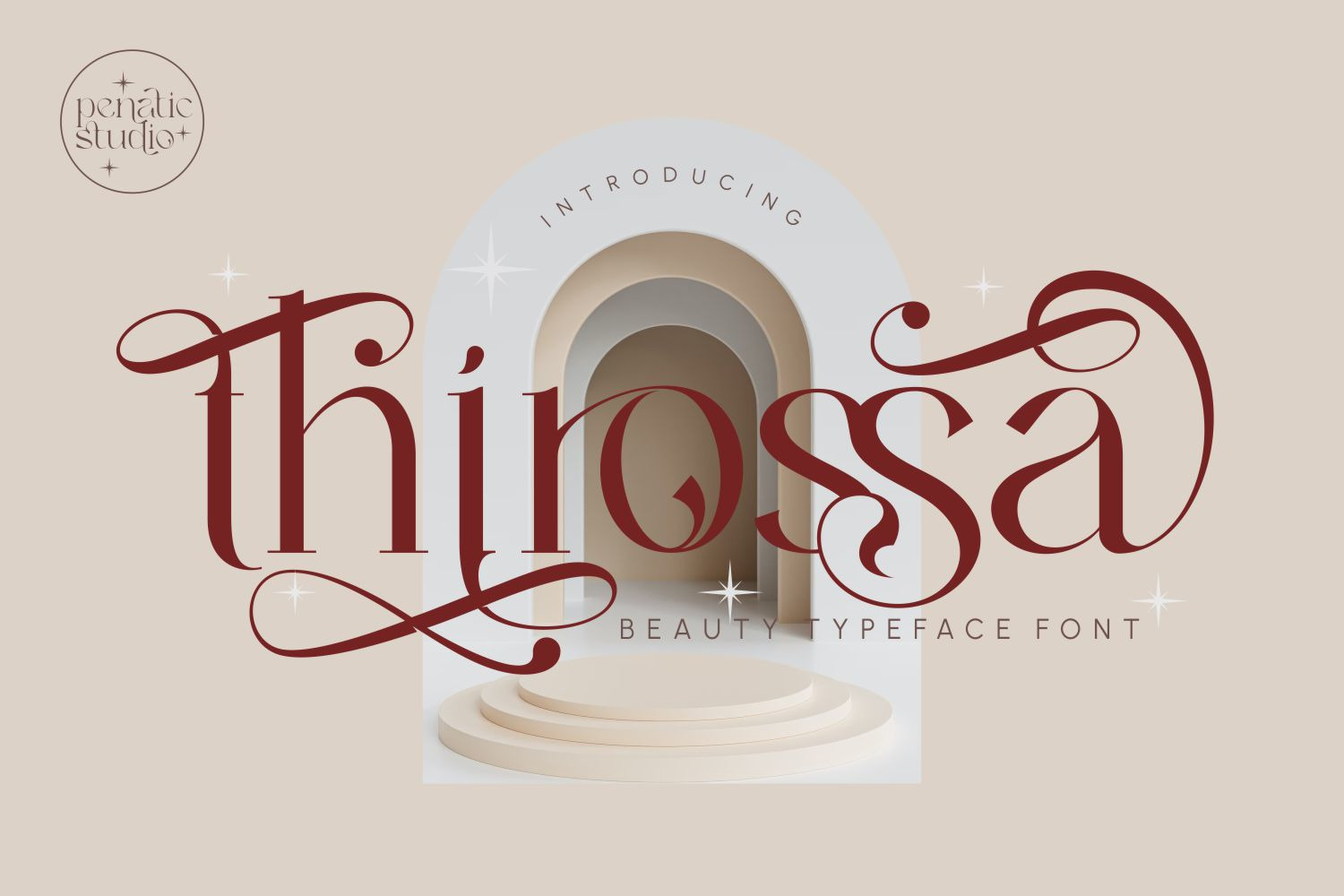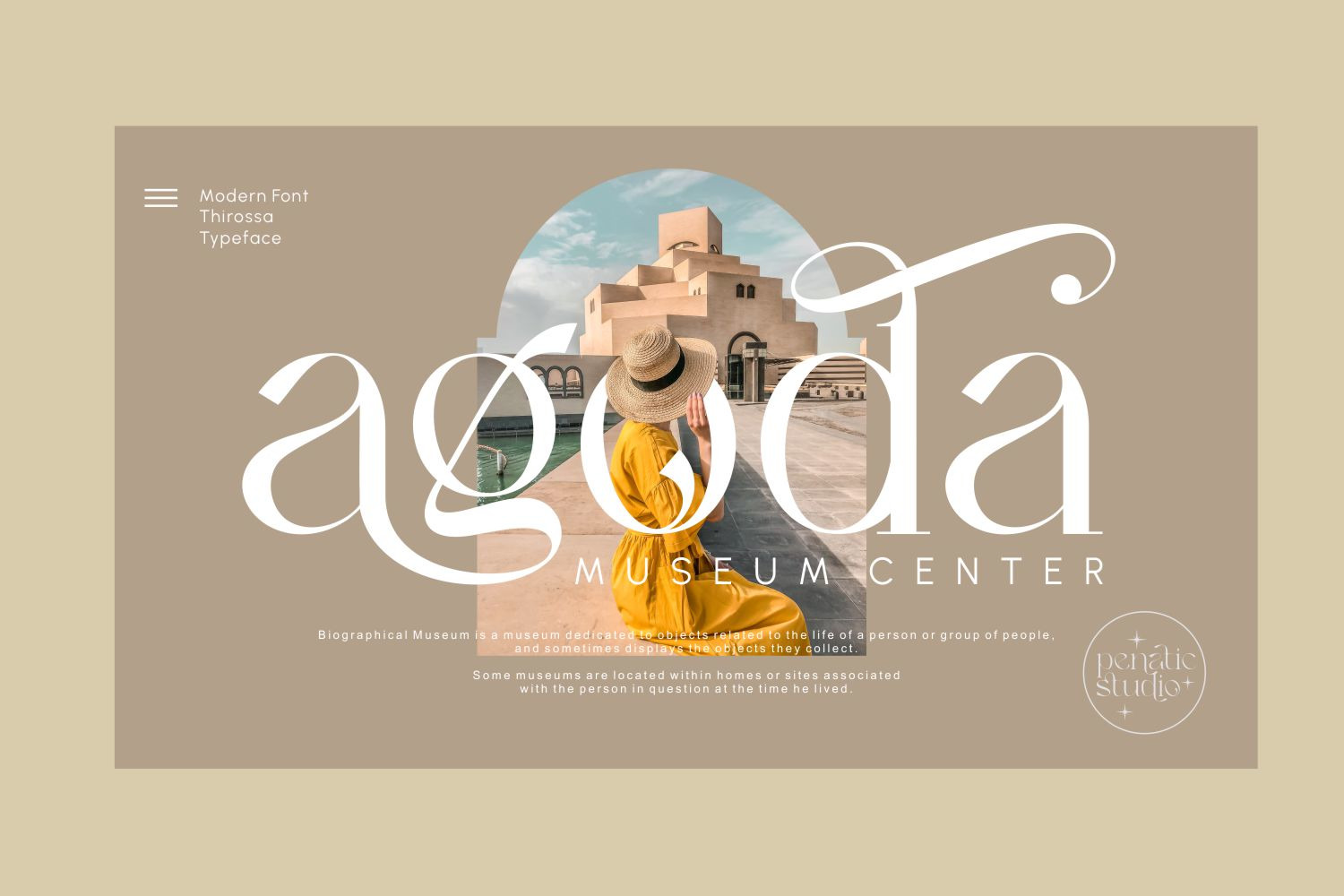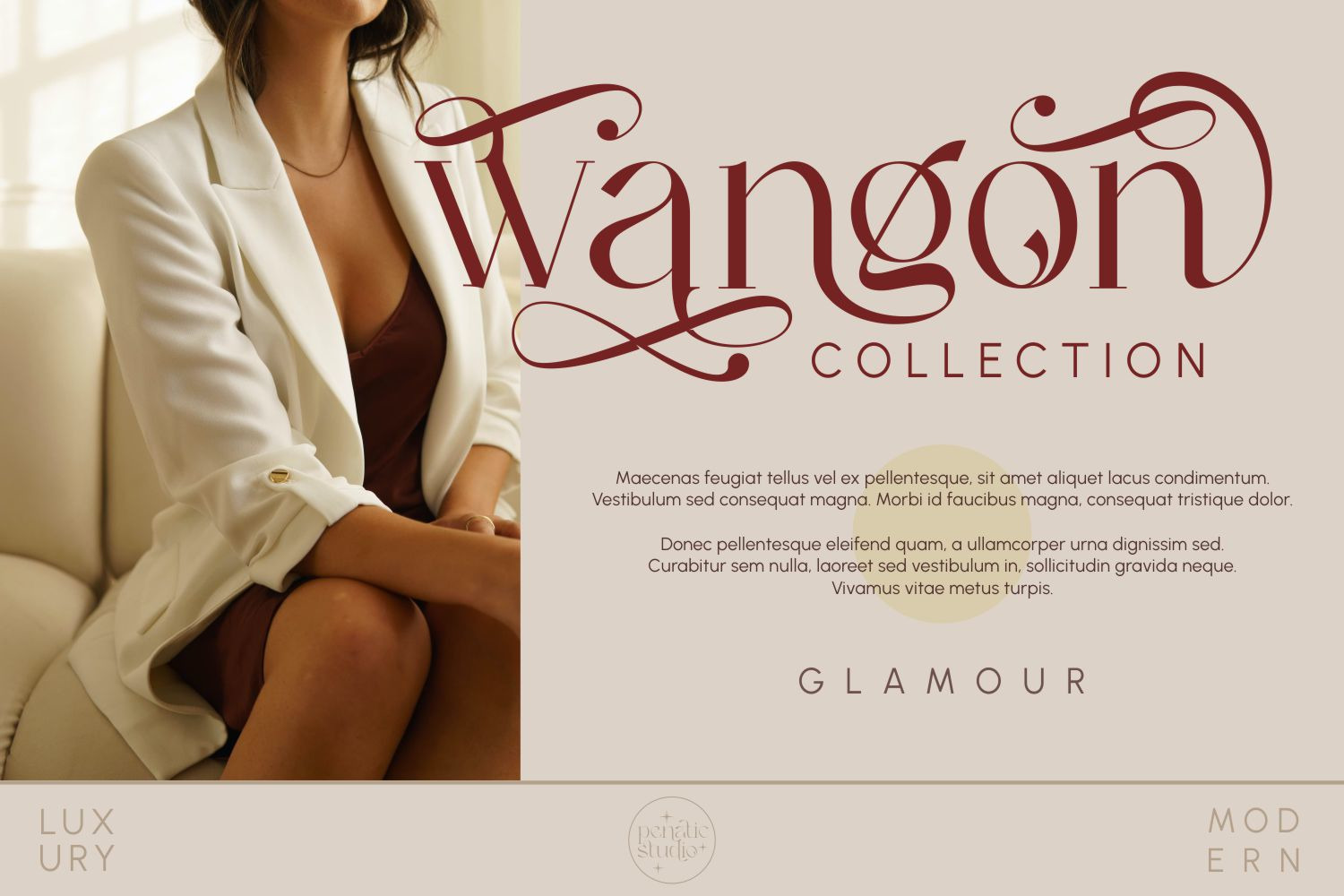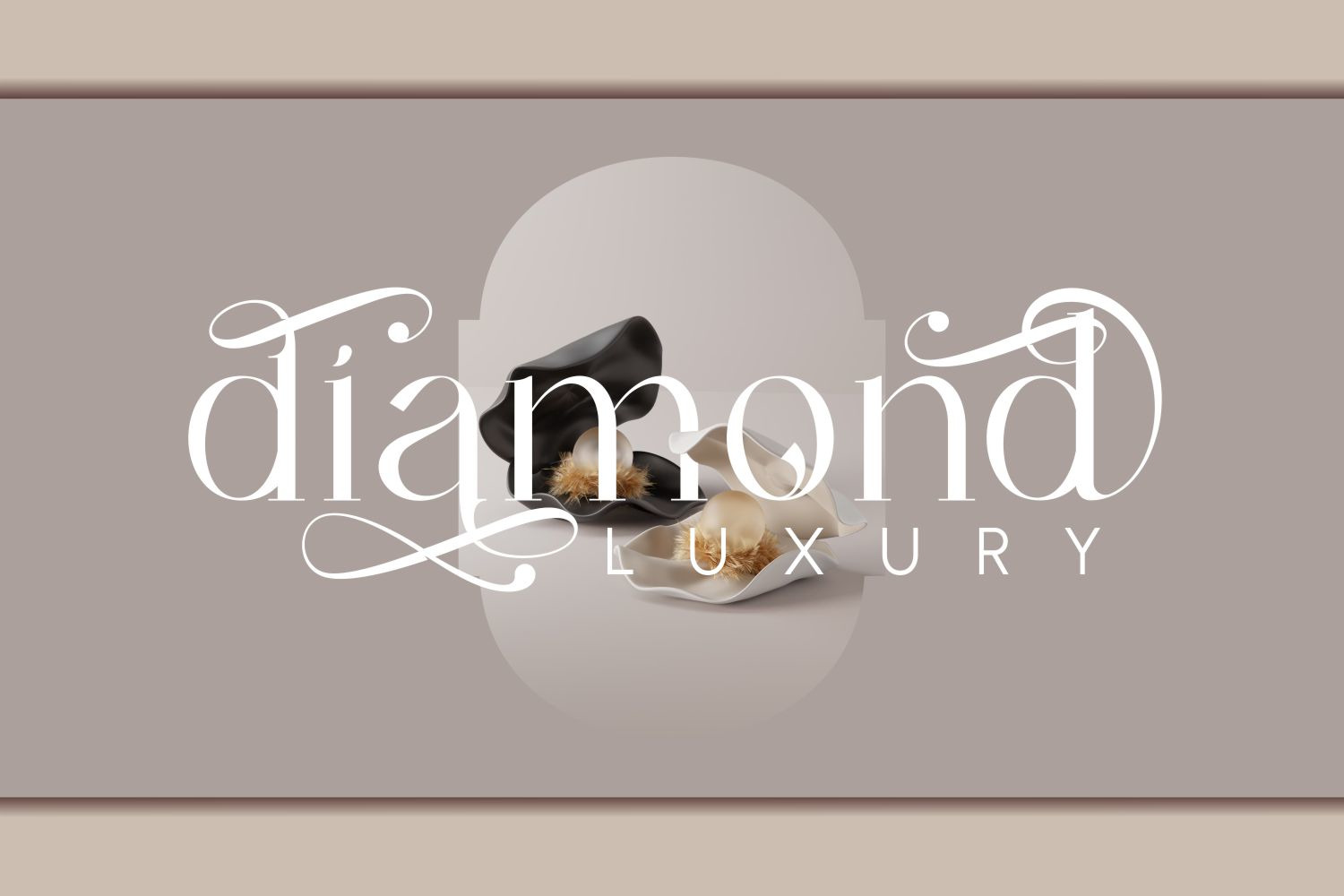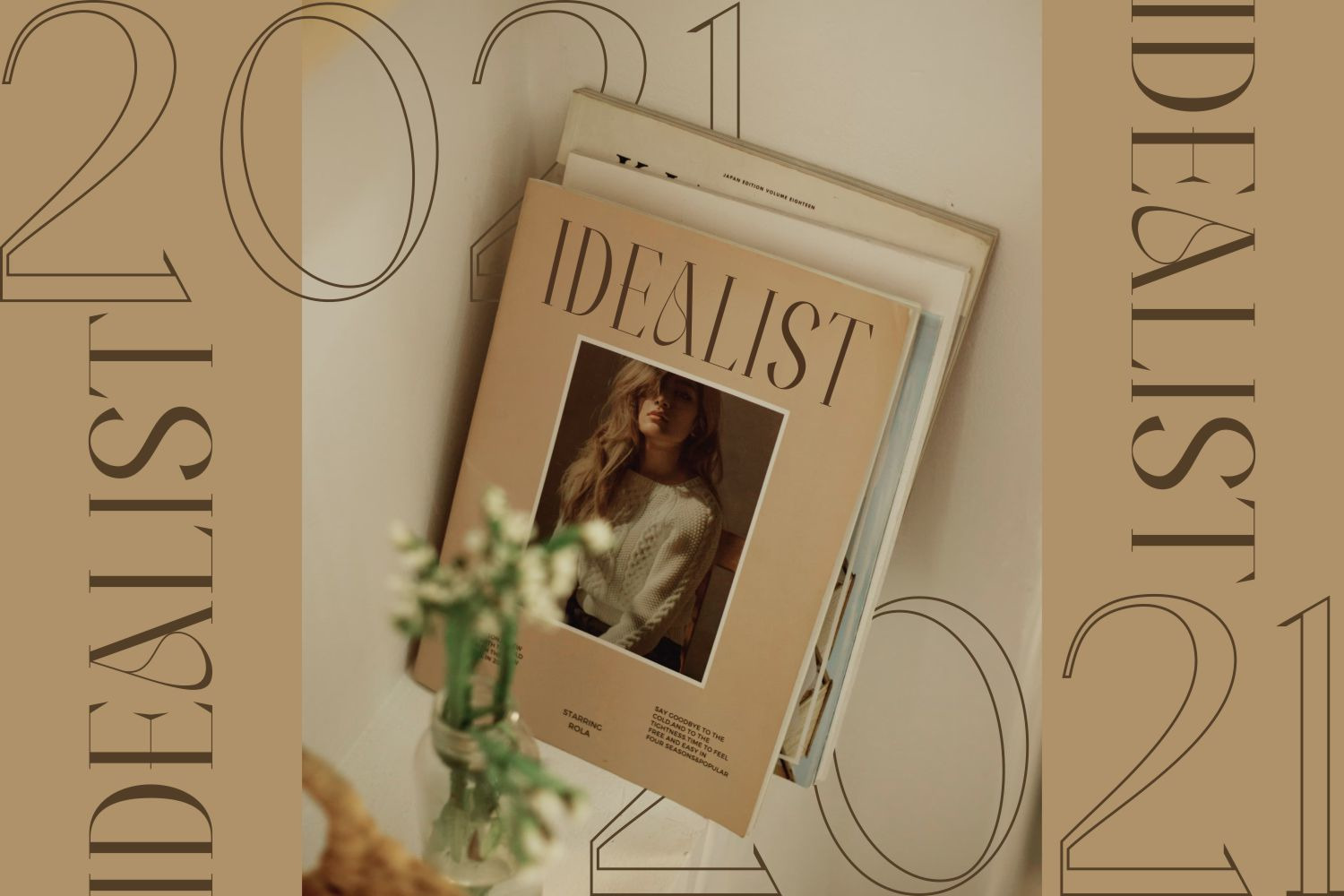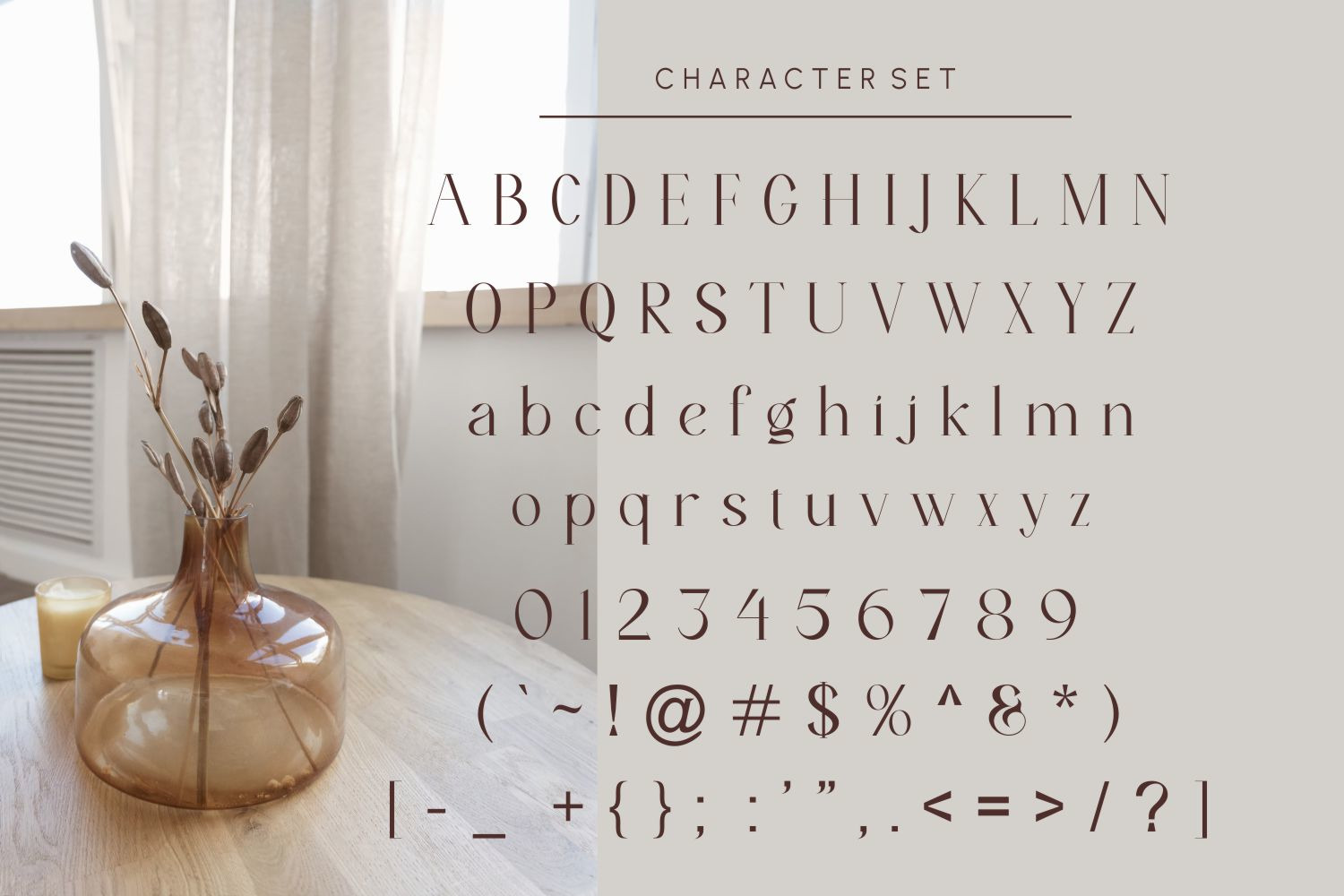
Thirossa - Beauty Typeface
on this occasion I would like to introduce a new product. which is named Thirossa. The font is very classic and elegant. certainly very suitable for all kinds of your brand identity and other nameplates.
The font is equipped with many ligatures and alternative letters that will make the letter more beautiful.